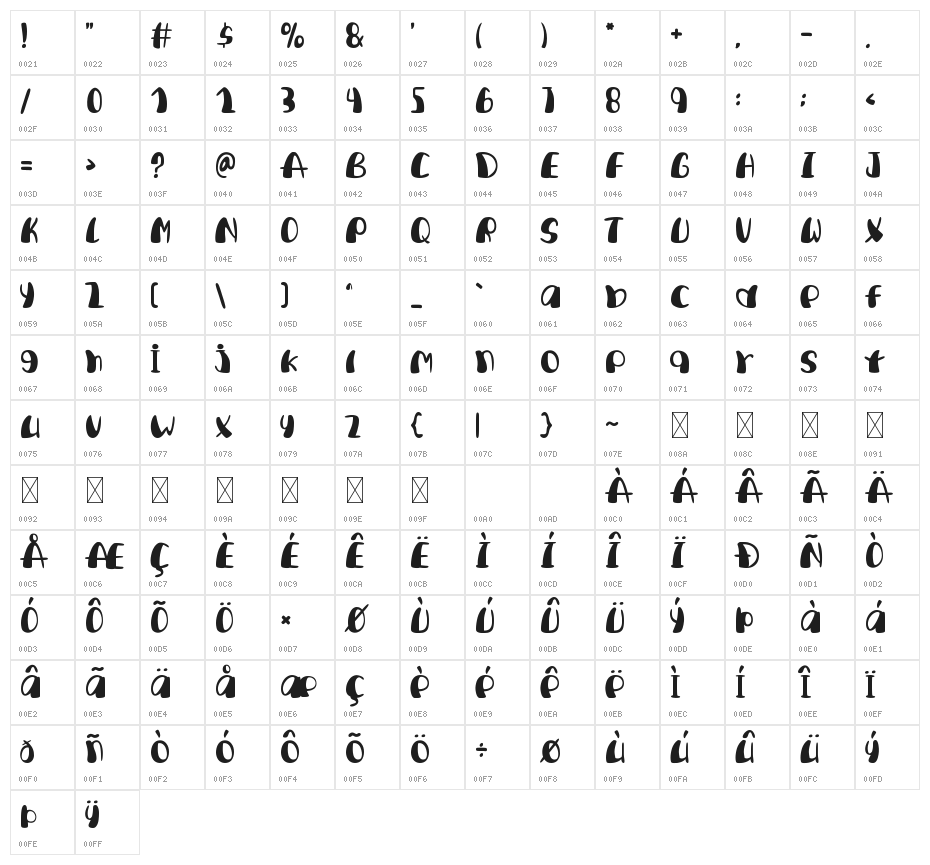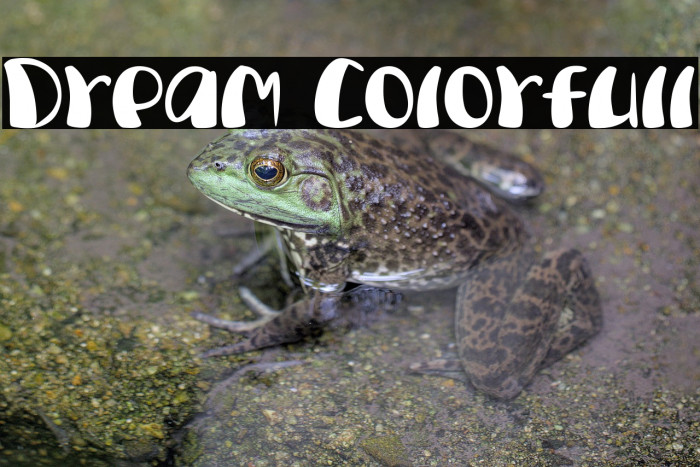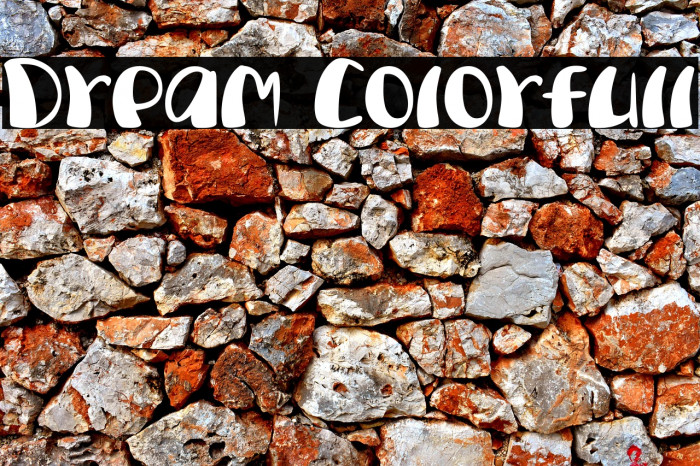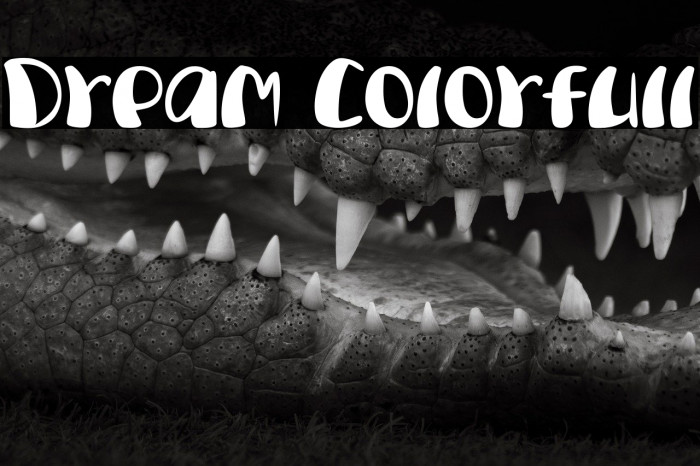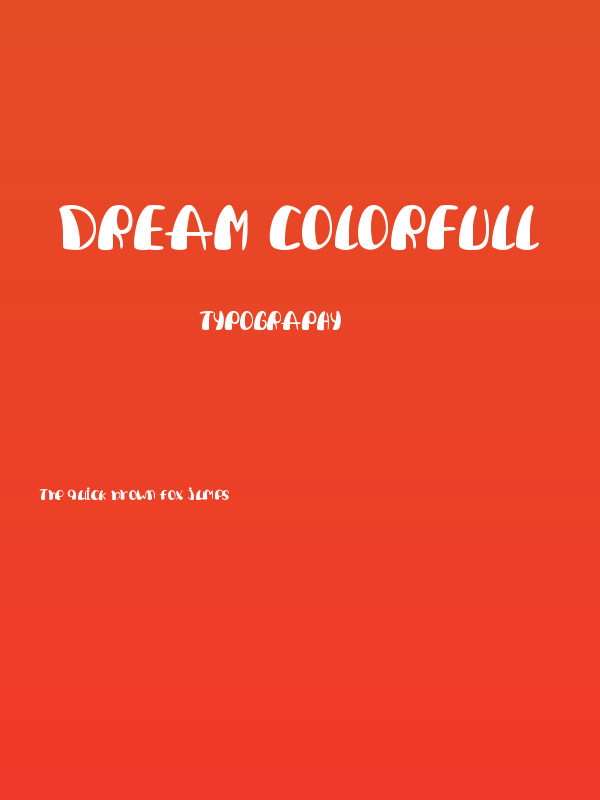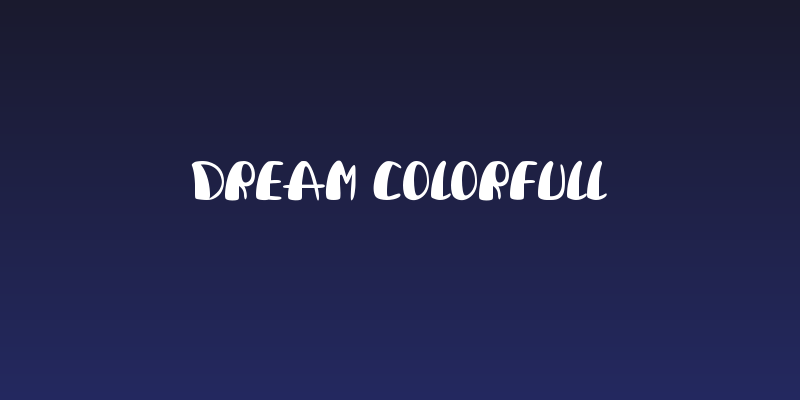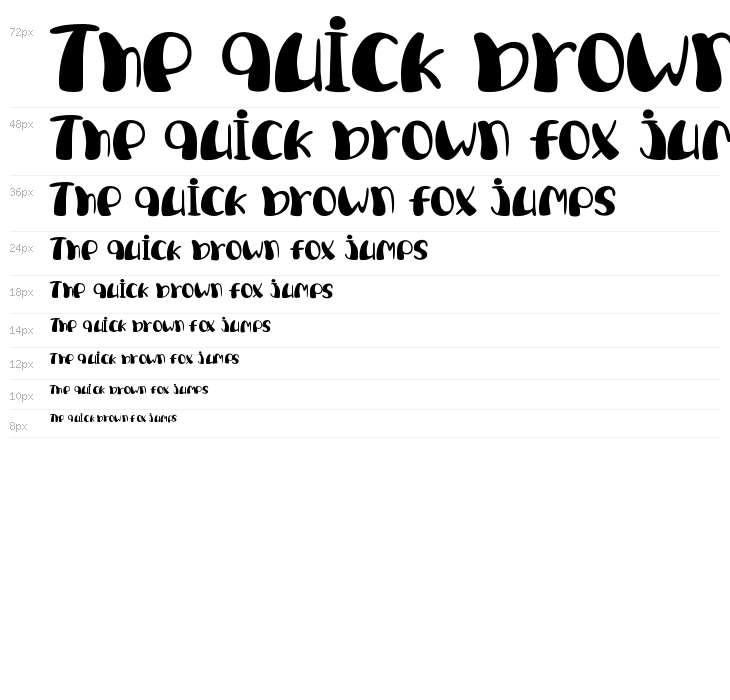
Dream Colorfull Font
Dream Colorfull Description
This font features a playful and bold design with a unique, hand-drawn appearance. The characters are rounded and slightly irregular, giving them a whimsical and friendly feel. The uppercase and lowercase letters maintain a consistent style, with some letters featuring distinctive loops and curves. The numbers are equally bold and maintain the same playful aesthetic. Special characters are included, matching the overall style of the font. This font is ideal for projects that require a fun and informal touch, such as children's books, posters, or creative branding.
| Proposed Projects | Ideal for children's books, playful posters, creative branding, and informal designs. |